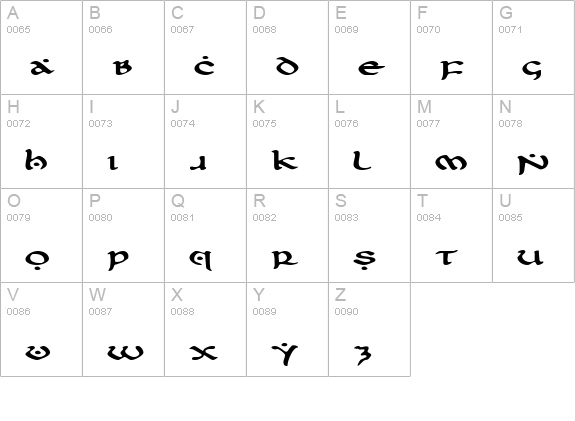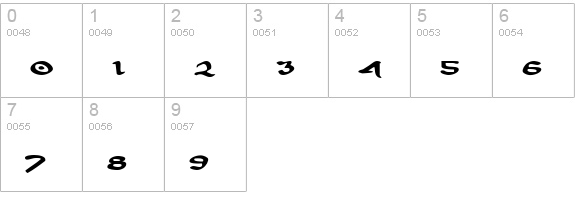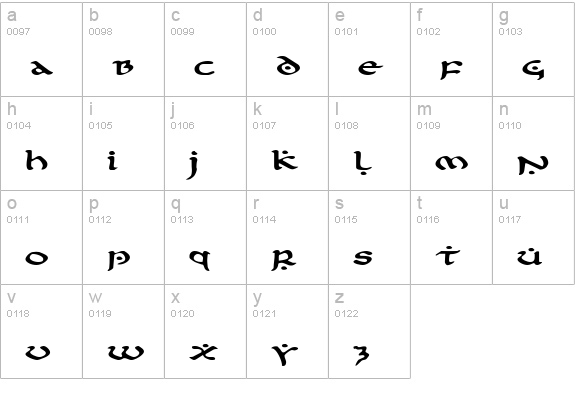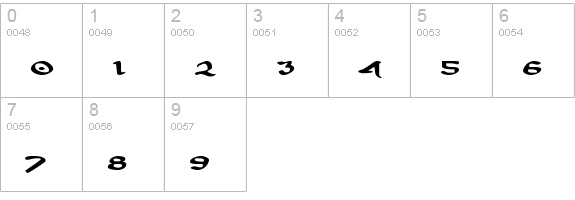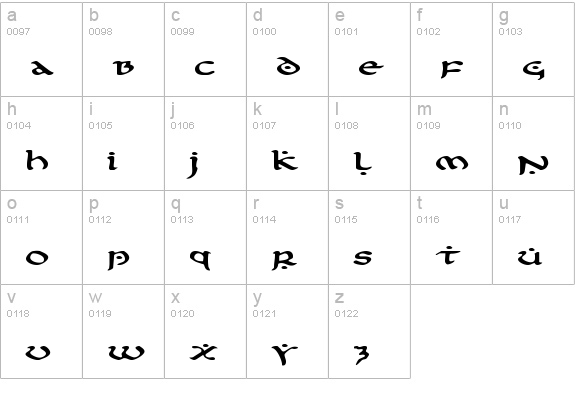
First Order Expanded Font Details
First Order Expanded is a distinctive, extended-width variant in the First typeface family \xE2\x80\x94 well suited to design and typography projects.